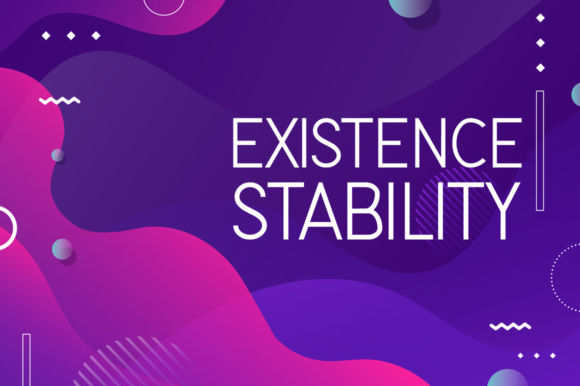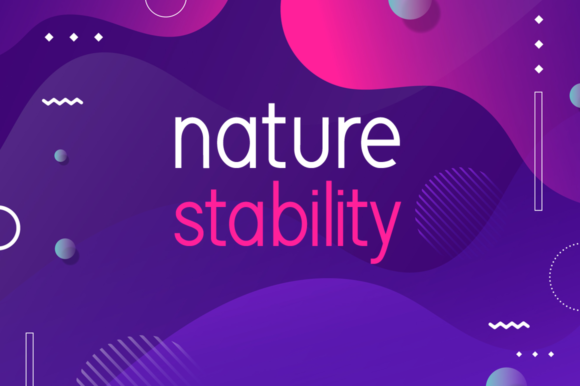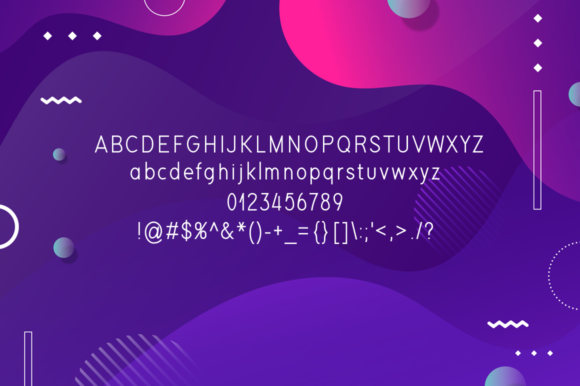
Introducing Entity Font: Elevate Your Designs with Elegance and Versatility
In the world of typography, fonts play a crucial role in conveying messages, evoking emotions, and creating lasting impressions. For designers and crafters seeking a unique and sophisticated display font, Entity Font is an exceptional choice. Entity is a distinct, elegant display font that seamlessly blends traditional influences into a contemporary aesthetic, offering maximum versatility and an exquisite, yet subtle look.
The Essence of Entity Font
Entity Font is designed to make a statement while maintaining an air of understated elegance. Its unique blend of classic and modern elements results in a font that is both sophisticated and versatile. Whether you’re working on a branding project, a website, or a crafting endeavor, Entity Font is the perfect choice for those seeking to add a touch of refinement and poise to their designs.
Key Features of Entity Font
- Distinct and Elegant Design: Entity Font boasts a distinctive and elegant design that sets it apart from other display fonts. Its unique character set and carefully crafted letterforms make it perfect for headlines, titles, and other display purposes.
- Traditional Influences: Entity Font draws inspiration from traditional typography, incorporating classic elements that evoke a sense of timelessness and sophistication.
- Contemporary Aesthetic: Despite its traditional roots, Entity Font has a distinctly contemporary feel, making it suitable for modern designs and projects.
- Maximum Versatility: Entity Font is designed to be versatile, allowing designers and crafters to use it across various applications, from digital media to print materials.
- Exquisite and Subtle Look: Entity Font’s elegant design ensures that it adds a touch of refinement and subtlety to any design, making it perfect for projects where a sophisticated look is desired.
Using Entity Font in Your Designs
Entity Font can be used in a wide range of design applications, including:
- Branding and Logo Design: Entity Font’s unique and elegant design makes it an excellent choice for branding and logo design projects.
- Web Design: Entity Font’s versatility and legibility make it perfect for use on websites, particularly for headlines, titles, and other display purposes.
- Print Design: Entity Font can be used in various print materials, such as brochures, posters, and business cards, to add a touch of elegance and sophistication.
- Crafting and DIY Projects: Entity Font can also be used in crafting and DIY projects, such as handmade cards, invitations, and other paper crafts.
Tips for Getting the Most Out of Entity Font
To maximize the impact of Entity Font in your designs, consider the following tips:
- Use it as a Display Font: Entity Font is designed to be used as a display font, so use it to create eye-catching headlines and titles.
- Experiment with Font Sizes and Colors: Entity Font’s versatility allows you to experiment with different font sizes and colors to create a unique look.
- Pair it with Other Fonts: Entity Font can be paired with other fonts to create a visually appealing contrast and add depth to your designs.
Entity Font is an exceptional display font that offers a unique blend of traditional influences and contemporary aesthetics. Its elegance, versatility, and subtle look make it perfect for designers and crafters seeking to add a touch of sophistication to their designs. With Entity Font, you can elevate your designs and create lasting impressions.